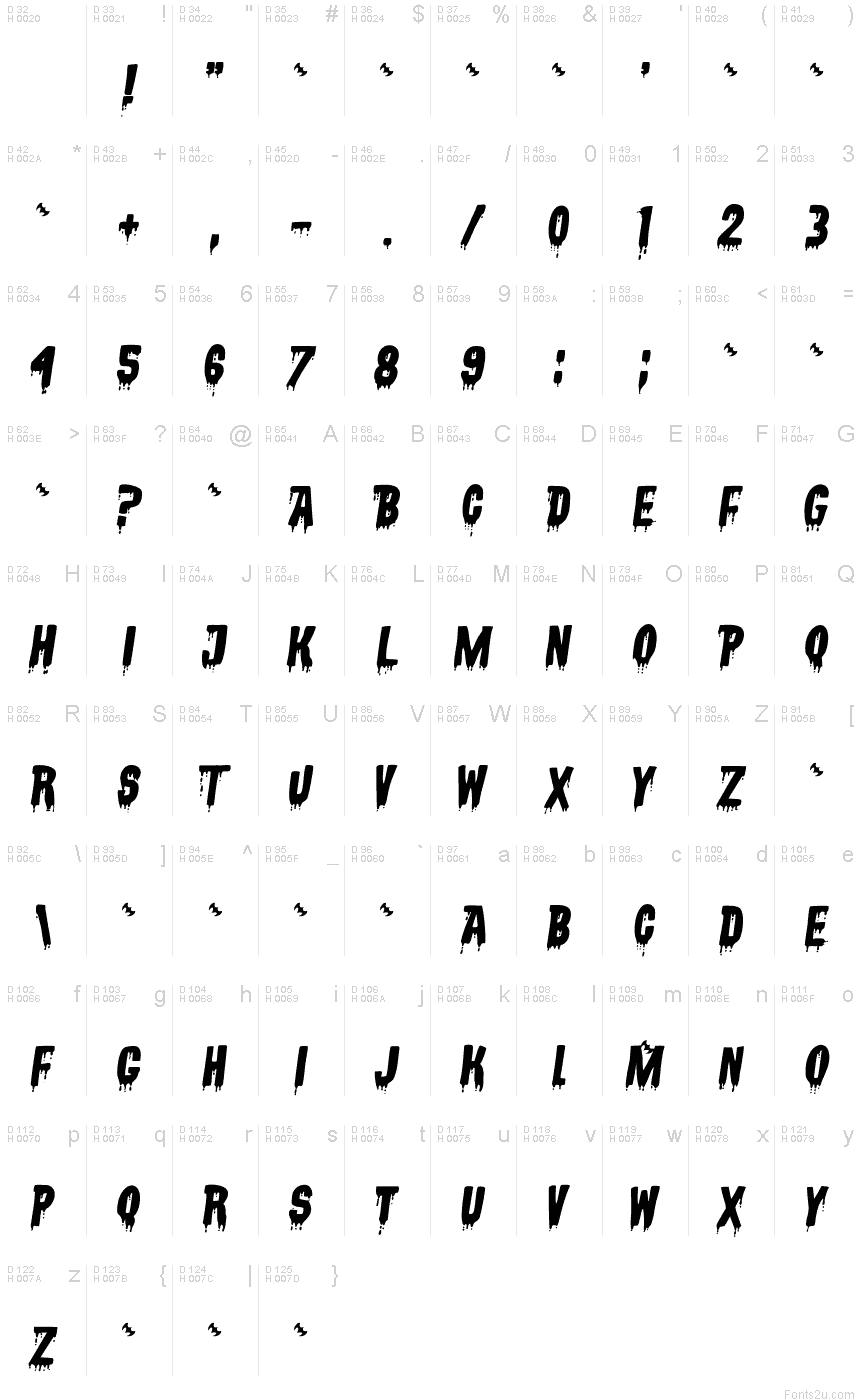
VampyrishABC-Oblique
Vampyrish ABC Oblique by M. Klein is a free horror display font with the ragged, dripping bite of old monster posters. The letters lean forward in heavy, jagged shapes, with tapering points, torn edges, and ink-like drops that make the whole font feel wet, frantic, and a little theatrical.
It fits naturally on Halloween flyers, haunted house branding, pulp cover lines, horror title cards, and band or event posters where a free font needs more menace than polish. Keep it for short words and sharp bursts of text, because the slanted drips and clawed silhouettes do most of the talking.